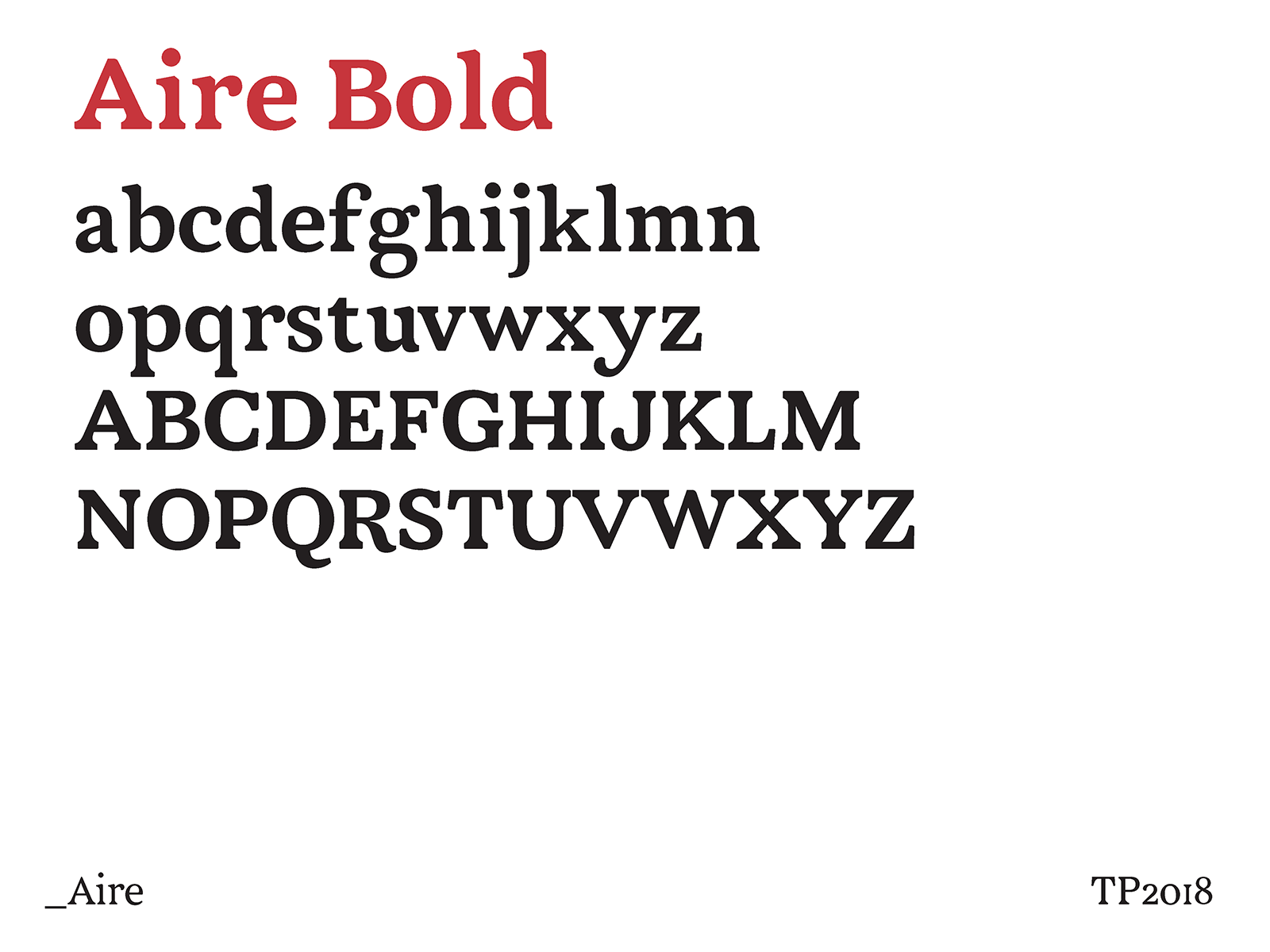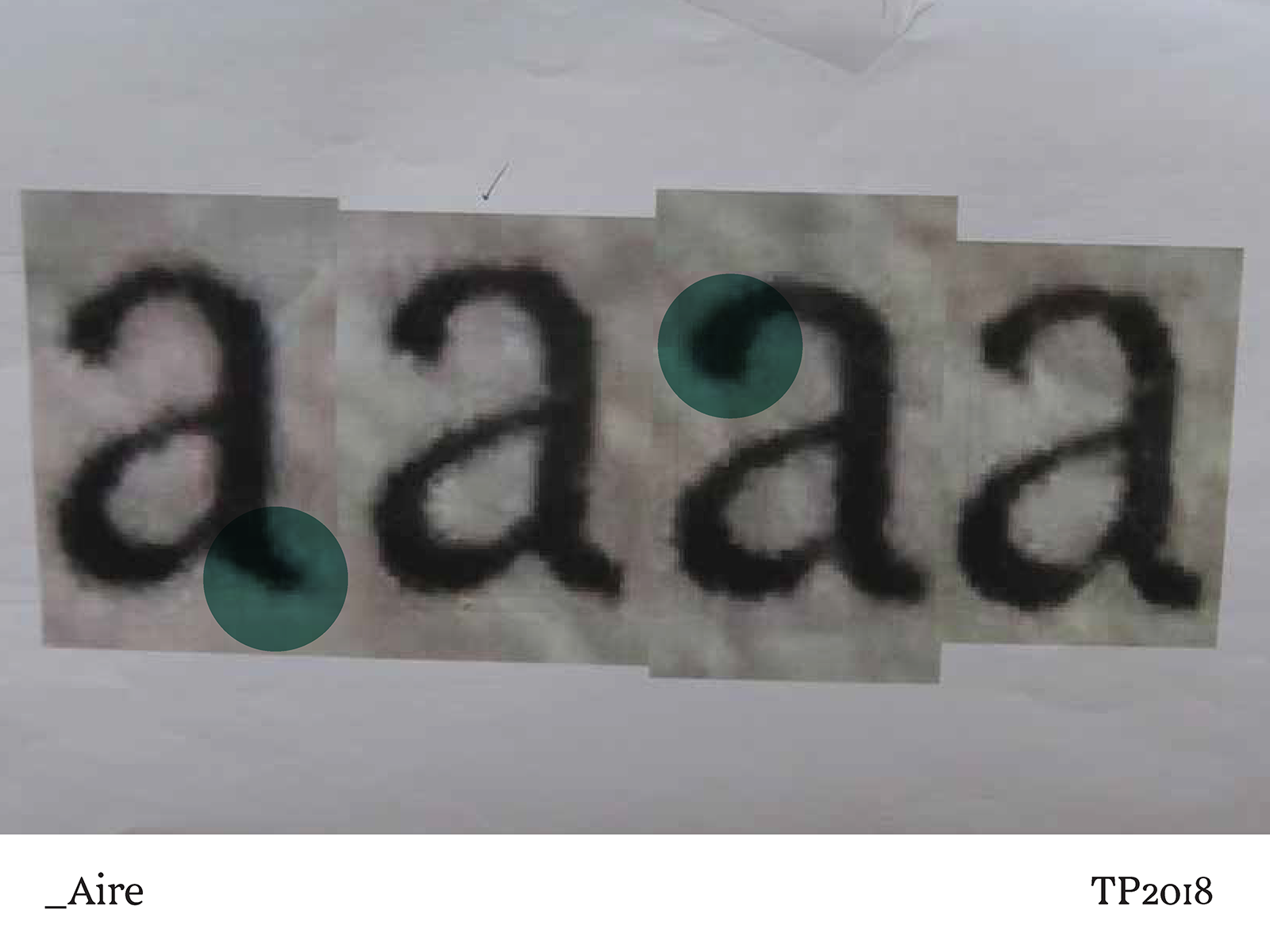
Aire
The idea of coming to TypeParis18 was to learn the most possible about typography by creating a text font. My brief was based on this objective, plus also the purpose to learn more about poetry. I must say I did not learn anything about this last topic because it was already too much information with typeface design.
Because I have always liked the ambience of the nineteenth century in Europe but mostly in France, I was lean to acquire this bohemian atmosphere of this era. On the other hand, I like the sensibility of some famous french writers and poets, such as Charles Baudelaire, Guillaume Apollinaire, Arthur Rimbaud among with some painters such like Monet, Degas, Braque and Picasso who are the creators of cubism, even though they are from a more early twentieth century years.
At the visit to Typofonderie library, Jean François lend me a book from that time, the name of the book was Les Quinze Joyes de Marriage, Second Edition de la Bibliothèque publique de Rouen. Chez P. Jannet, Libraries, 1857.
From there I started to scan and do a revival with the help pf TypeParis crew.
I was able to finish a whole set for the Regular version, and almost the bold version completed. Later on I would like to create an Italic version as well as a Small Caps.